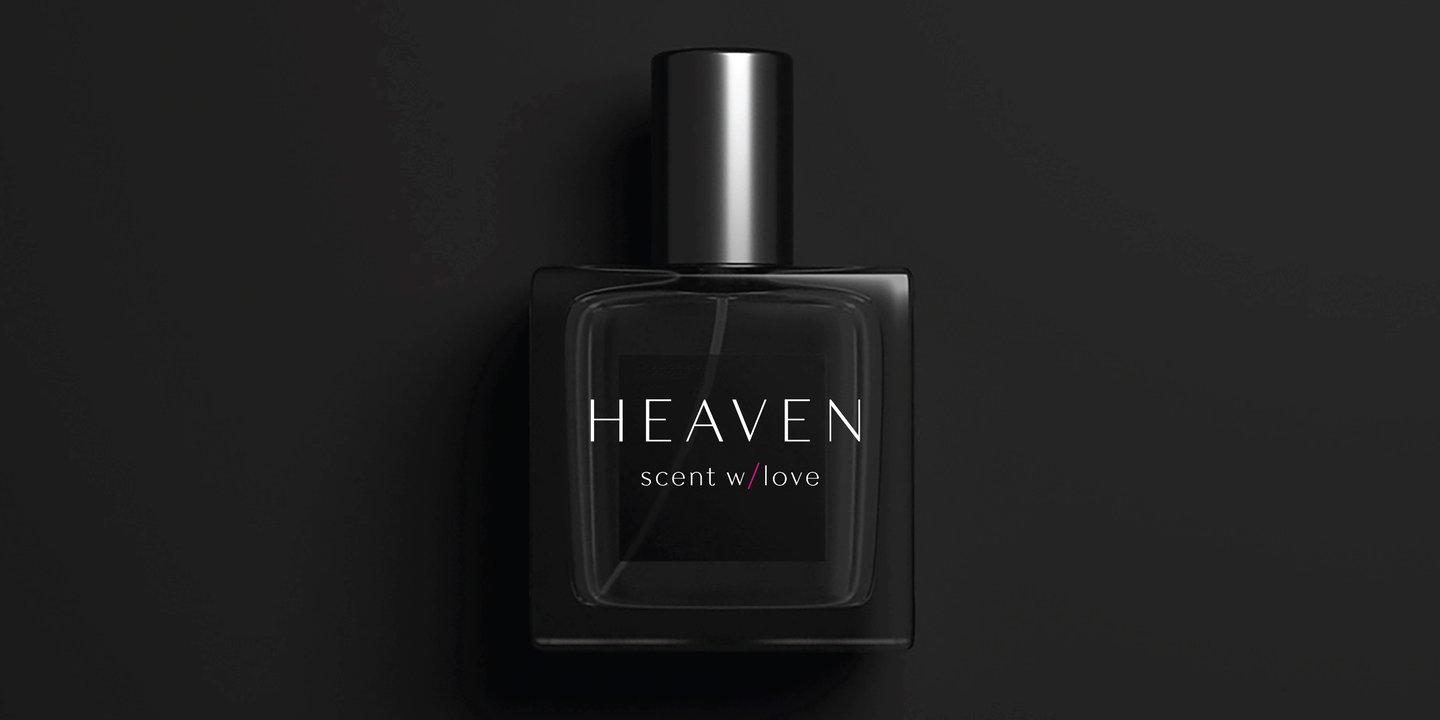
TKT is a new interpretation of elegant sans serif display font with a modern touch. It inspired from Optima and Humanist font. The overall look is round, open counters and with a large x-height, geometrically constructed which is intentionally meant to be used in branding projects such as packaging, corporate design to on line applications.